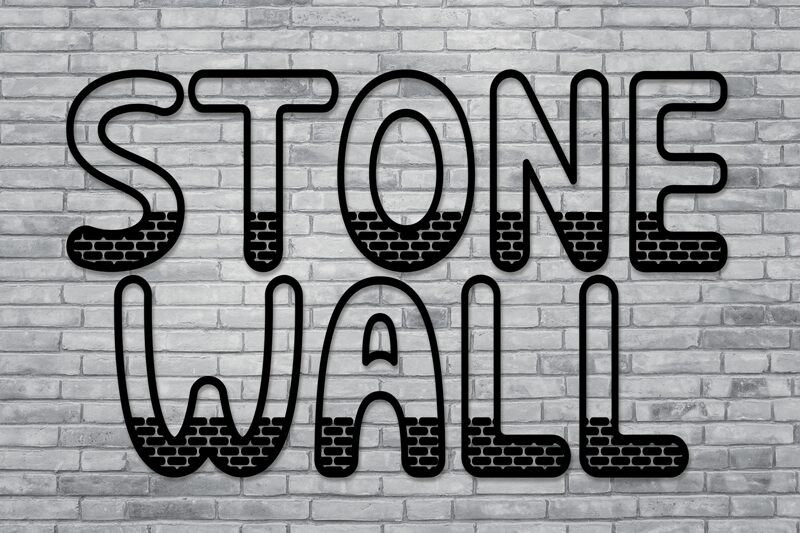
Stone Wall
Stone Wall is a distinctive display font, designed by Andi Moz, that exudes a captivating sense of ruggedness and strength. The bold, all-caps letters are adorned with a captivating pattern of repeating shapes, evoking the textured appearance of a stone wall.
This unique aesthetic lends itself exceptionally well to headings, titles, and attention-grabbing design elements, making it a versatile choice for branding, advertising, and editorial applications where a bold, impactful visual statement is desired.
The font's decorative flair and striking visual appeal make it a compelling option for designers seeking to create designs with a memorable, high-impact presence.